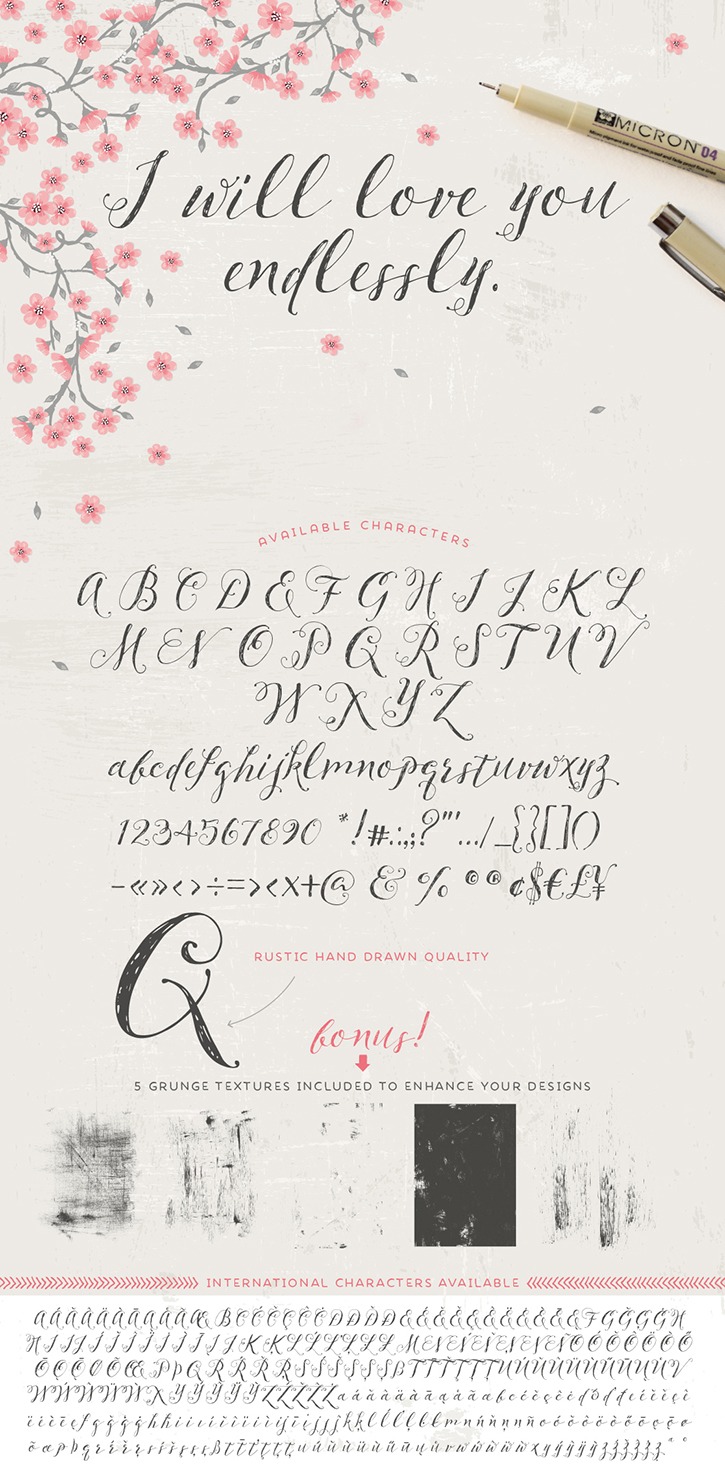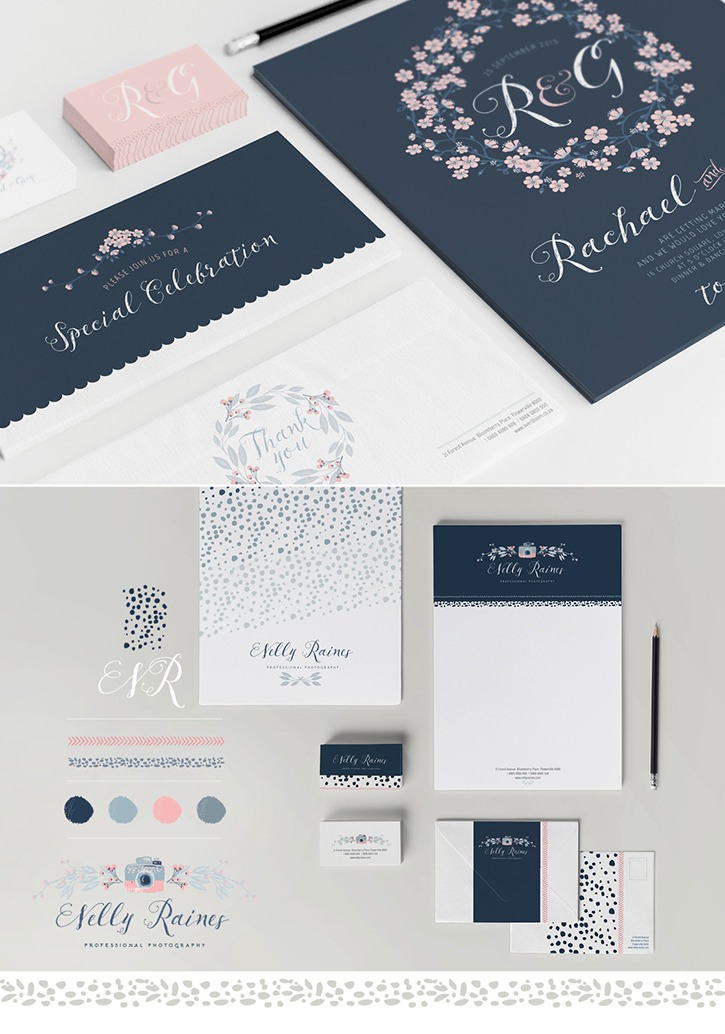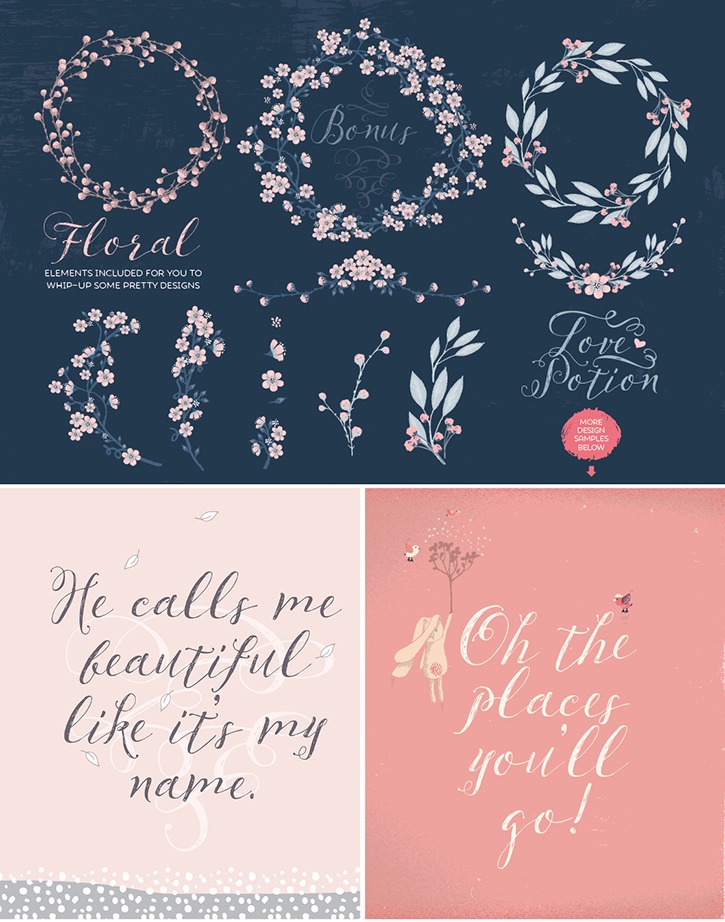
Introducing Pillowbook, a romantic hand drawn typeface!
A delicate font with a lovely rustic feel, made with care in the ever-popular style of modern calligraphy. The subtle irregular baseline and hand drawn quality to each character will give your work an authentic imperfect hand-lettered look!
The ornaments have a range of items to enhance your work, and even come with some versatile patterns and text dividers! A handy reference sheet is provided plus tips on how to get the most out of your ornaments. All made to save time and make branding and designing super-easy!
Pillowbook Script typeface
A romantic hand drawn typeface.